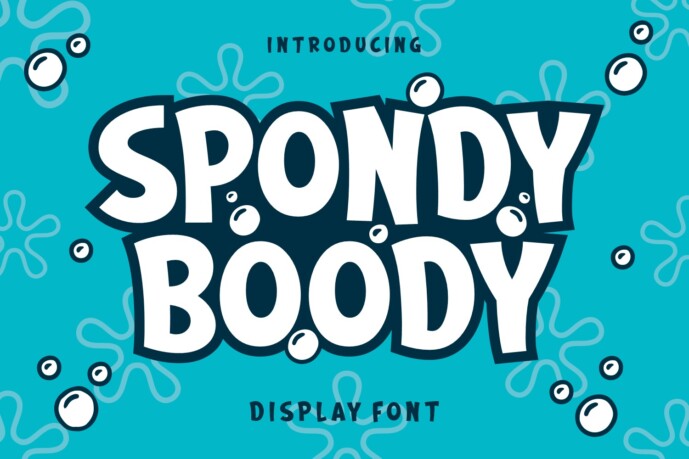
Spondy Boody Font
Designer: Feri (7NTypes)
Spondy Boody is a bold and bubbly cartoon display font full of energy and fun! With playful curves, chunky shapes, and bubbly details, it’s perfect for kids’ games, cartoons, party posters, and anything that needs a loud, lighthearted personality.
Inspired by ocean adventures and comic fun, this font is ready to make waves in your designs.